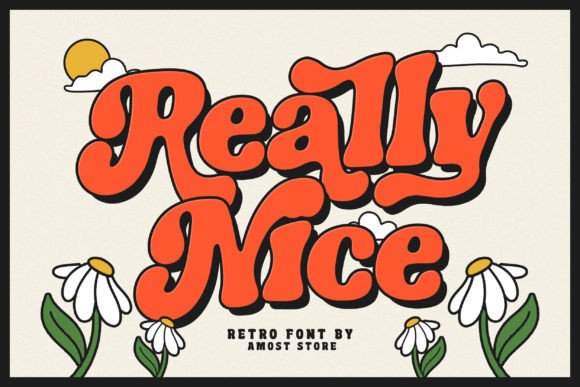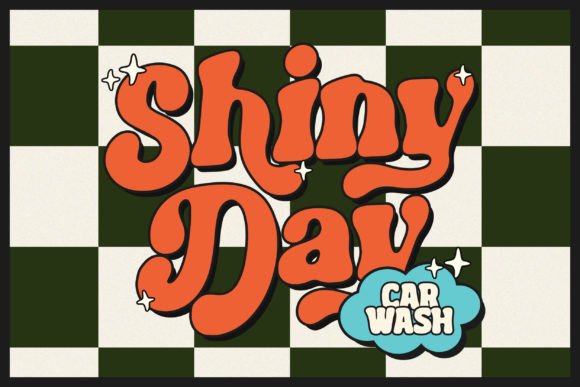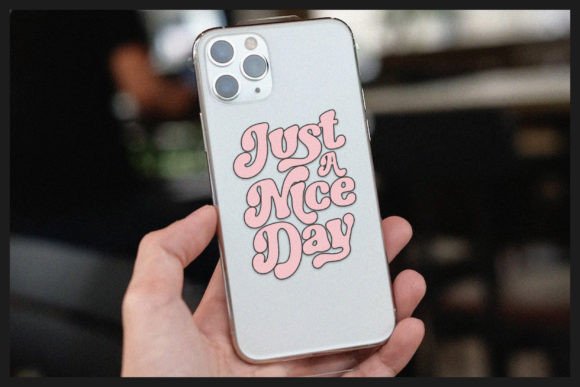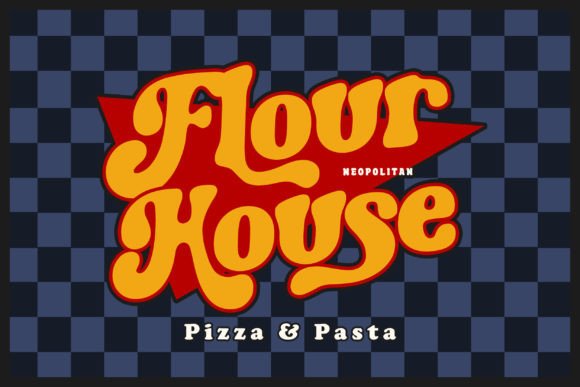
Really Nice Font
About the Really Nice Font
Step up your design game with Really Nice Font, a font that exudes confidence and style. Really Nice is a groovy-style display font. Fun, unique, and a little quirky, this font is perfect for all your projects that require a retro look.
Its playful, retro styling makes it ideal for headlines, posters, and branding projects aiming for a vintage or 70s aesthetic. It also works well on packaging for products with a similarly fun and quirky personality. However, its unique character and relatively large x-height make it unsuitable for body text or UI elements requiring high readability.
For optimal visual harmony, pair Really Nice Font with clean sans-serif fonts like Helvetica or Open Sans for a balanced contrast, or consider a more geometric sans-serif for a modern twist. A classic serif like Garamond could also add sophistication, grounding the font’s playful energy.
The overall personality of Really Nice Font is best described as bold and playful, with a touch of retro charm. This makes it a strong choice for brands and projects that value a fun, distinctive visual identity.